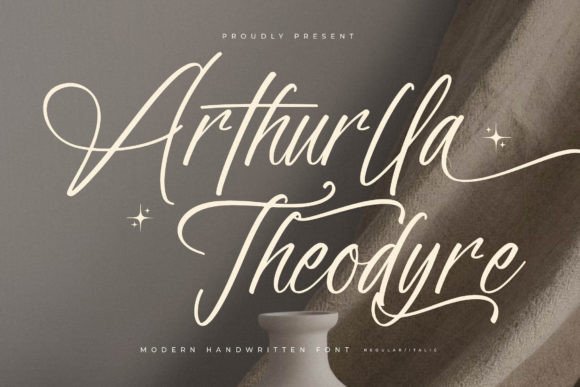
Arthurlla Theodyre: A Script Font for Modern Marketing
The Power of a Handwritten Typeface in Digital Campaigns
As a marketing specialist, I've spent years analyzing what makes a design catch the eye and stick in the mind. One element that consistently stands out is typography. A well-chosen font can transform a simple graphic into a compelling visual that drives engagement. Arthurlla Theodyre is a thin-lettered handwritten font that brings both elegance and energy to digital content. Its calligraphic influences blend seamlessly with a contemporary feel, making it ideal for modern marketing needs.
Visual Style and Personality
Arthurlla Theodyre is more than just a script font—it's a statement. With its delicate strokes and flowing lines, it evokes a sense of sophistication and creativity. The thin lettering gives it a refined look, while still maintaining enough weight to be legible at smaller sizes. This balance makes it versatile for a wide range of applications, from social media graphics to brand assets.
Its personality is warm and approachable, making it perfect for personal branding or campaigns that aim to connect with audiences on an emotional level. Whether you're creating a promotional banner or a branded template, Arthurlla Theodyre adds a touch of character that helps your message stand out in a crowded digital space.
Applying Arthurlla Theodyre in Real-World Marketing
From Instagram posts to YouTube thumbnails, Arthurlla Theodyre has the versatility to enhance every stage of your marketing strategy. Here are some practical use cases:
Each of these applications benefits from the unique charm of Arthurlla Theodyre, which adds a human touch to otherwise digital content. It's especially effective in scenarios where you want to build a connection with your audience through visual language.
Readability and Visual Hierarchy
While Arthurlla Theodyre is visually striking, readability remains a top priority. When used in short text, such as headlines or callouts, it maintains clarity even at smaller sizes. For longer blocks of text, it's best paired with a contrasting sans serif font to ensure legibility on mobile screens and in fast-scrolling feeds.
On Pinterest pins and Instagram stories, where visuals often compete for attention, Arthurlla Theodyre works best when used strategically—such as for titles or decorative accents. In digital ads, it can help draw the eye to key messages without overwhelming the viewer.
When designing for small previews or thumbnails, keep in mind that the font's thin strokes may appear less distinct at lower resolutions. Always test your designs across different devices and screen sizes to ensure optimal performance.
Font Pairing for Maximum Impact
To maximize the effectiveness of Arthurlla Theodyre, consider pairing it with complementary fonts that enhance its strengths. Here are a few proven combinations:
These pairings allow you to maintain visual consistency while adding depth and variety to your design toolkit. Whether you're crafting a webinar banner or a promotional graphic, thoughtful font pairing can elevate your content significantly.
Building Brand Recognition with Consistency
Consistency is key to building strong brand recognition. Arthurlla Theodyre can be a powerful tool in this effort, especially when used across all marketing materials. From logo marks to packaging design, its distinctive style reinforces your brand’s identity and helps create a memorable impression.
When launching a new product or service, using Arthurlla Theodyre in teasers, launch announcements, and promotional content can generate buzz and anticipation. Its elegant yet approachable nature makes it ideal for both high-end and casual brand messaging.
For small business marketing teams, Arthurlla Theodyre offers a premium font solution that doesn't require a large design budget. It's a great choice for those looking to make a big impact with minimal resources.